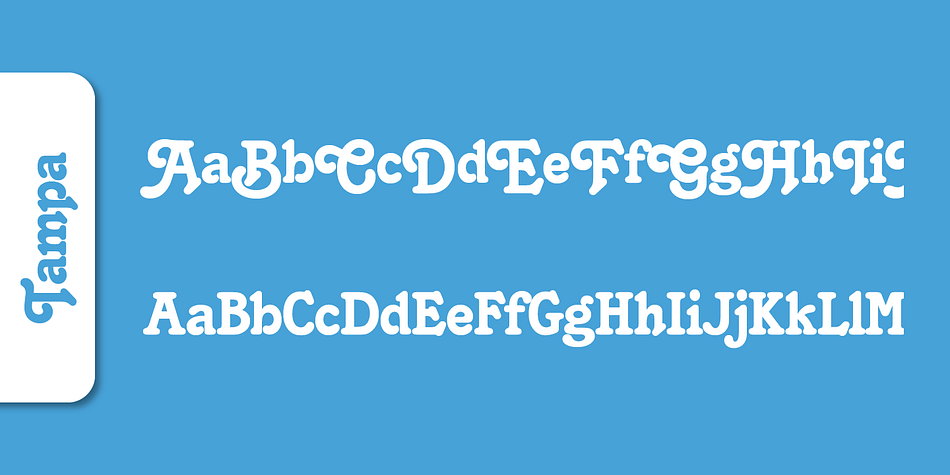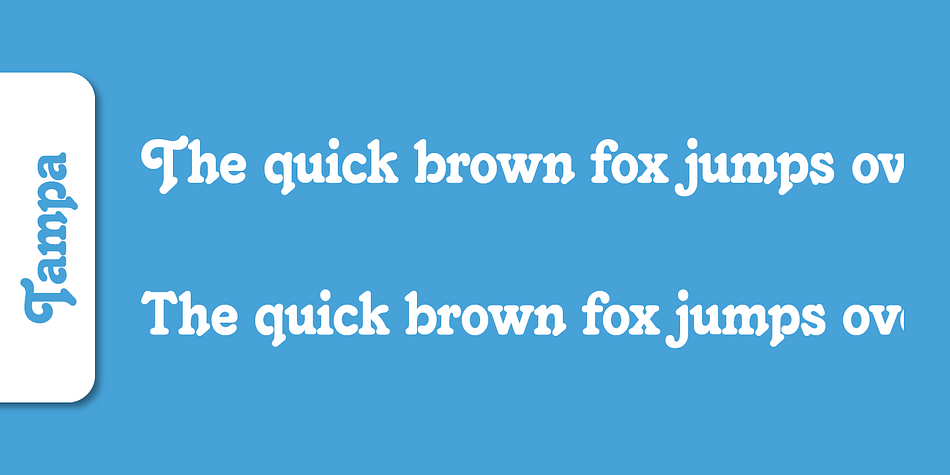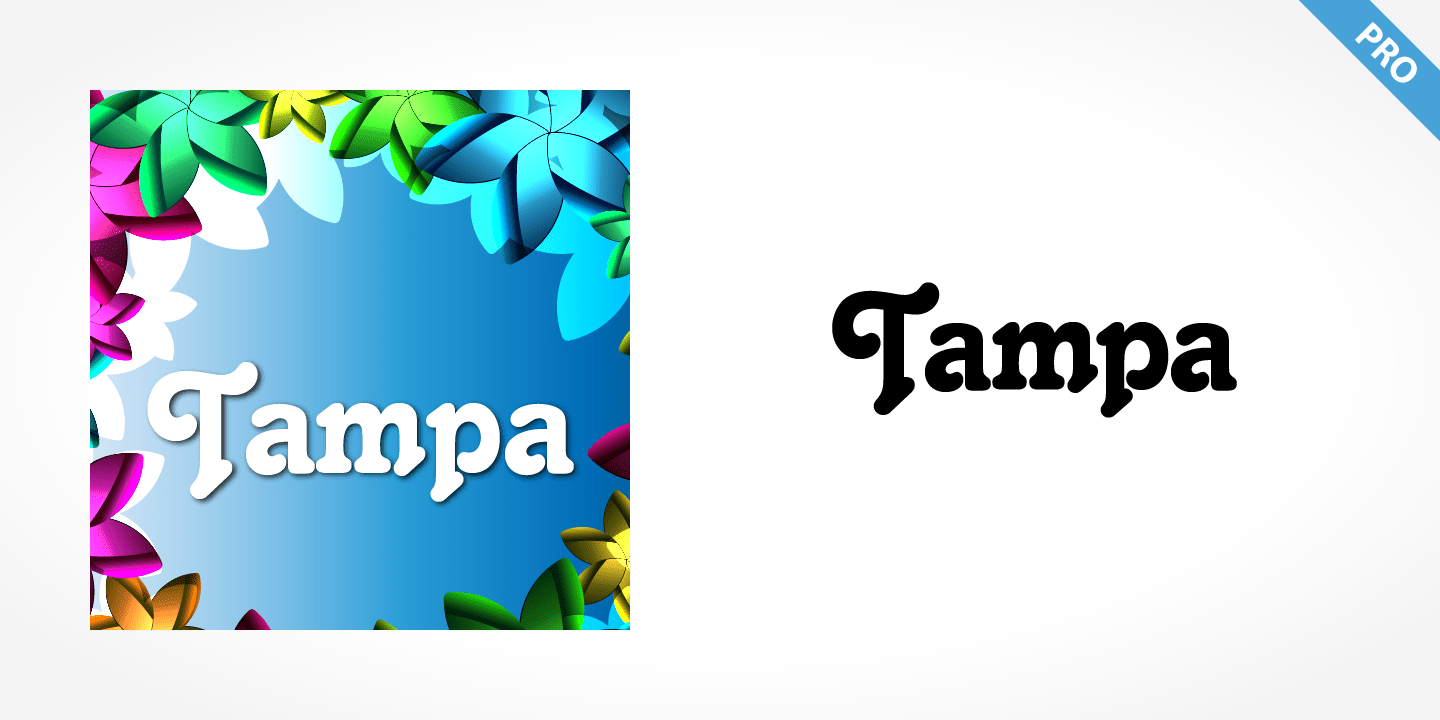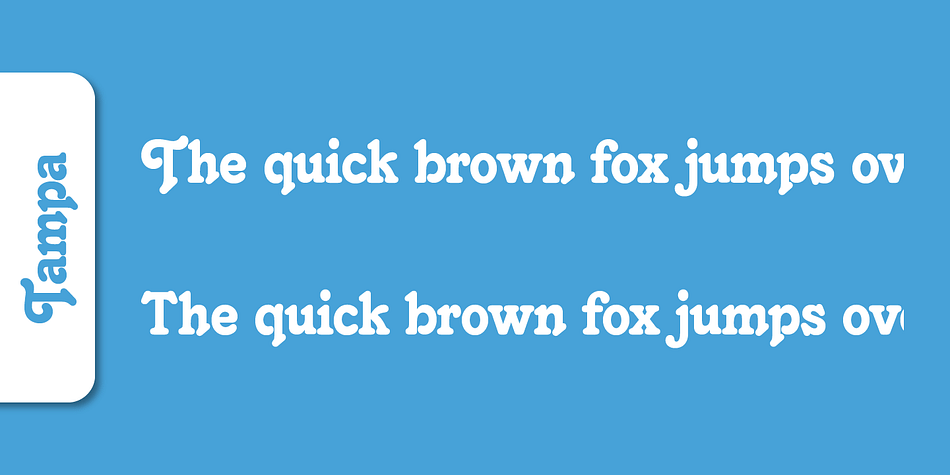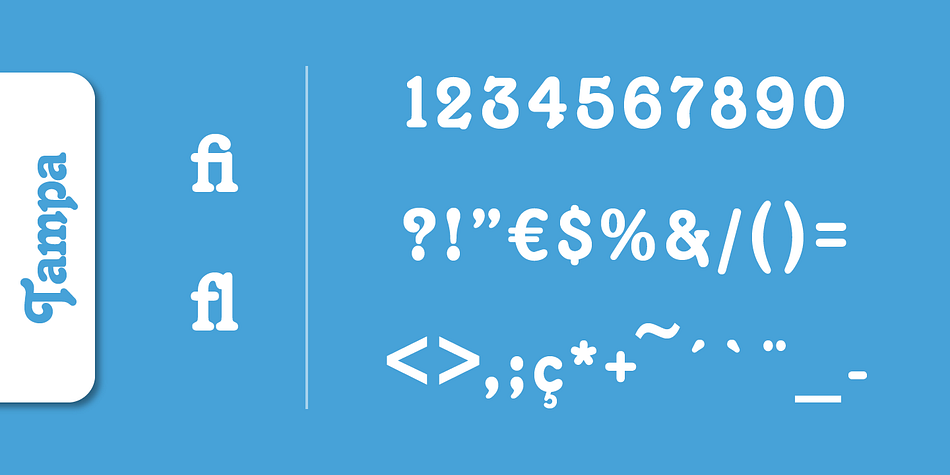
Tampa Pro
Tampa Pro is a retro font family. This typeface has two styles and was published by SoftMaker.
Tampa Pro is a groovy swirl of a font and looks like disco party ready to lift off. Tampa Pro is one of many fonts that have come to symbolize the party music of the 1970s, familiar forms can be found on countless album covers from that era. Tampa Pro is a child of it’s times - flashy, lively, and fun!